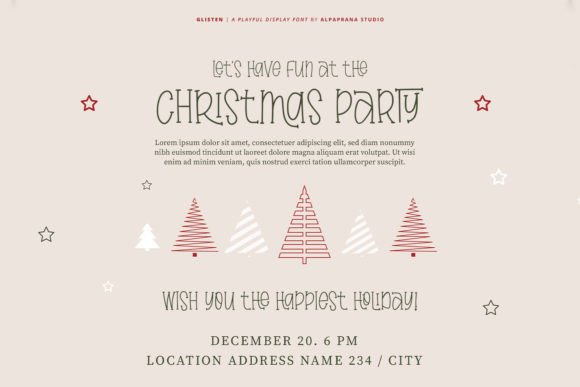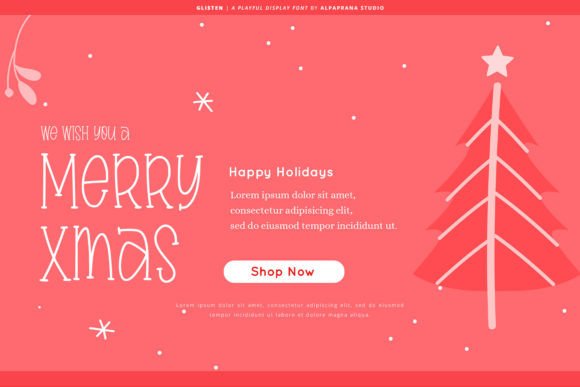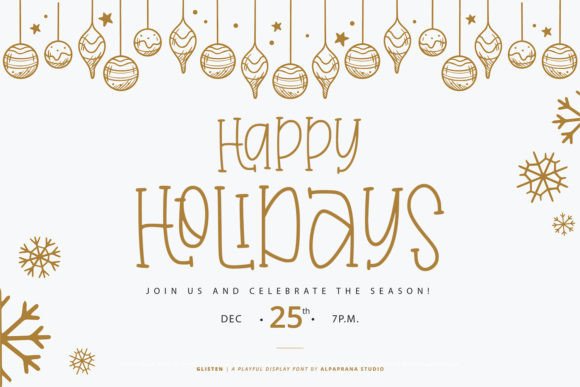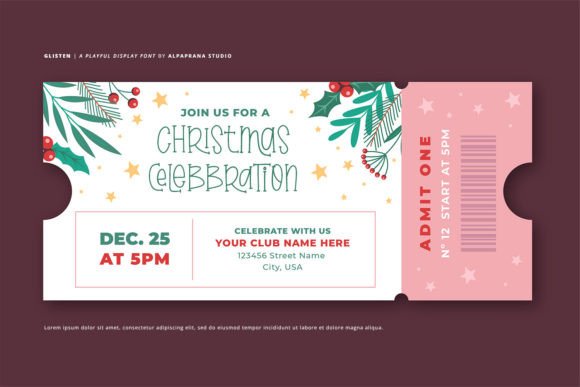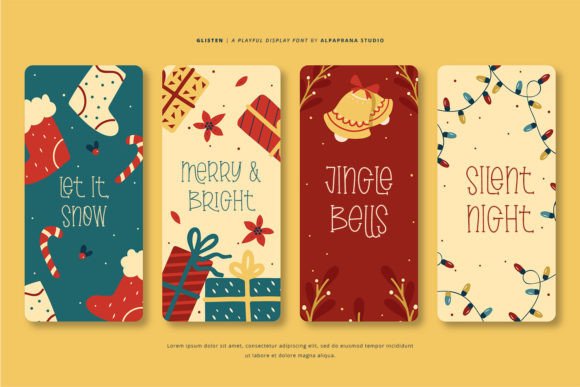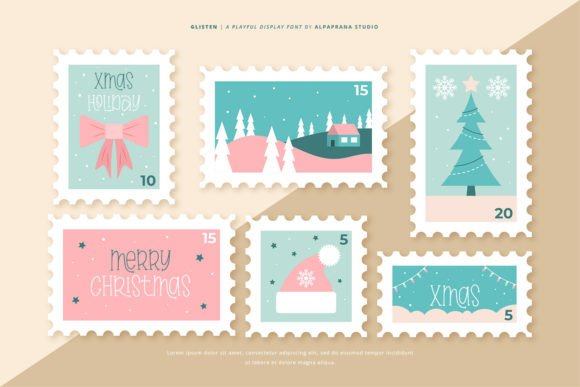
Glisten Font: A Sweet and Friendly Handwritten Font for Your Designs
Are you looking for a font that can add a touch of warmth and personality to your designs? Look no further than Glisten Font, a sweet and friendly handwritten font that’s perfect for a wide range of projects. With its natural and unique style, Glisten Font is incredibly versatile and can be used in everything from branding and advertising to crafting and DIY projects.
The Characteristics of Glisten Font
Glisten Font is a handwritten font that’s designed to look like it was written with love and care. Its natural, flowing lines and curves give it a friendly and approachable feel that’s perfect for designs that need to connect with their audience on a personal level. The font’s unique style is also highly legible, making it easy to read and understand, even at small sizes.
The Benefits of Using Glisten Font
So why choose Glisten Font for your designs? Here are just a few of the benefits of using this beautiful font:
- Versatility: Glisten Font is incredibly versatile and can be used in a wide range of designs, from feminine and playful to bold and adventurous.
- Legibility: The font’s clear and flowing lines make it easy to read and understand, even at small sizes.
- Uniqueness: Glisten Font has a unique and distinctive style that will help your designs stand out from the crowd.
How to Use Glisten Font in Your Designs
Glisten Font is incredibly easy to use and can be incorporated into your designs in a variety of ways. Here are a few ideas to get you started:
- Branding and advertising: Use Glisten Font to create eye-catching logos, ads, and marketing materials that will help your brand stand out.
- Crafting and DIY projects: Add a personal touch to your crafting and DIY projects with Glisten Font, perfect for making handmade cards, gift tags, and more.
- Digital designs: Use Glisten Font in your digital designs, such as social media graphics, blog posts, and website headers.
Tips and Tricks for Getting the Most Out of Glisten Font
Here are a few tips and tricks for getting the most out of Glisten Font:
- Experiment with colors: Glisten Font looks great in a variety of colors, so don’t be afraid to experiment and find the perfect hue for your design.
- Mix and match: Combine Glisten Font with other fonts and design elements to create a unique and eye-catching design.
- Pay attention to spacing: Make sure to pay attention to the spacing between letters and words to ensure that your design looks clean and professional.
Glisten Font is a sweet and friendly handwritten font that’s perfect for designers and crafters looking to add a touch of warmth and personality to their designs. With its natural and unique style, Glisten Font is incredibly versatile and can be used in a wide range of projects. Whether you’re creating branding and advertising materials, crafting and DIY projects, or digital designs, Glisten Font is sure to become a favorite in your design arsenal.